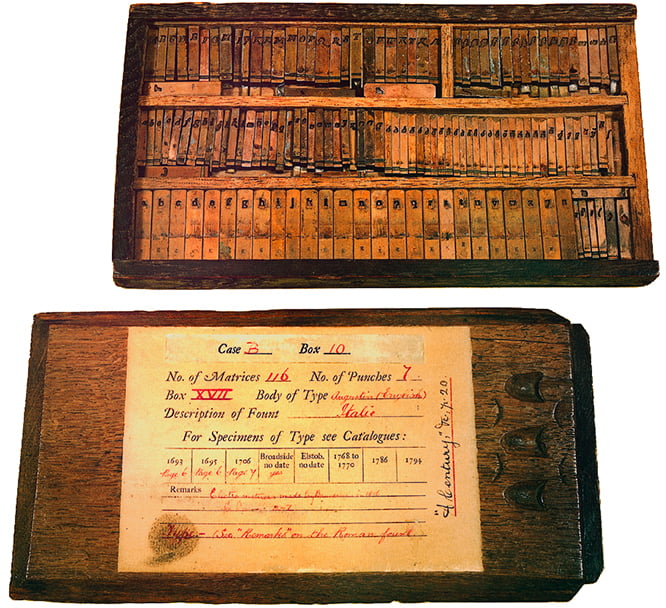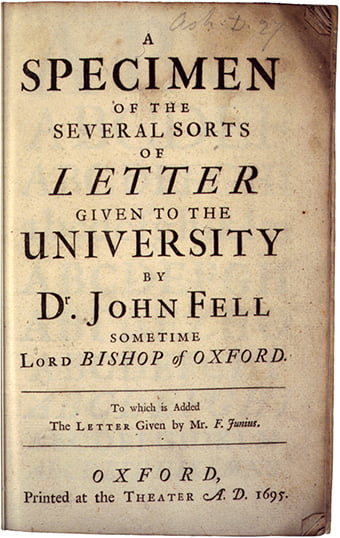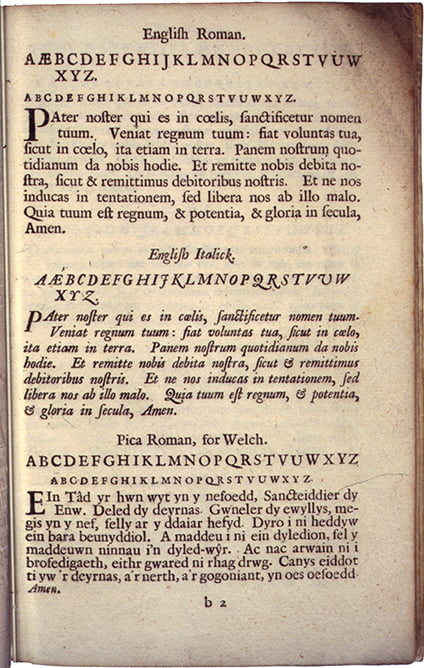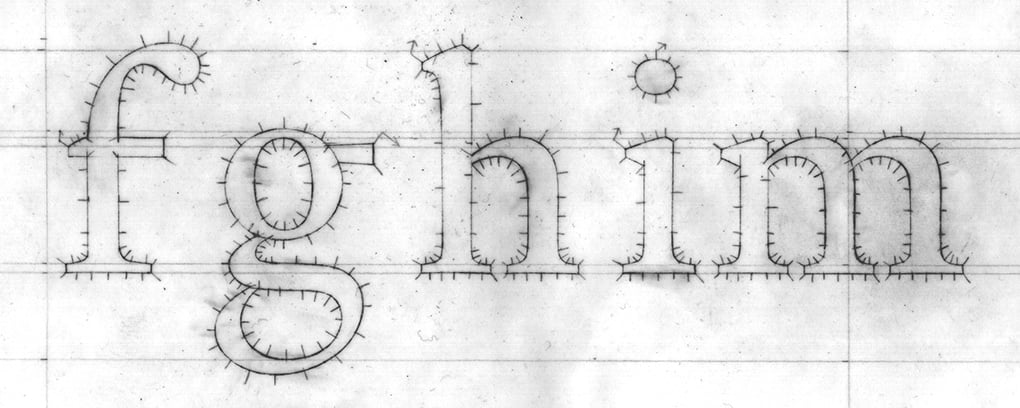
Contrary to what their names might suggest, the English Roman and English Italick, which served as the model for dtl Fell, are not of English manufacture. These are originally Dutch type models dating from the seventeenth century. John Fell (1625–1686), who was Bishop of Oxford from 1675 until his death, purchased the material and donated it to Oxford University Printing. In this context, ‘English’ is the indication for a body size that is comparable to 12 didot points. | |||||||||||||||||||||||||||||
The matrices of the English Italick | |||||||||||||||||||||||||||||
In The Roman, Italic & Black Letter Bequeathed to the University of Oxford by Dr. John Fell (Oxford, 1951) Stanley Morison reports that the English Roman may have been cut by Christoffel van Dijck (ca.1606–1669). In support of this assumption, Morison writes that the Double Pica Roman is identical to a model that can be seen on the type specimen that the widow Van Dijck published around 1673. However, Morison does not mention which type that is. In any case, it is certain that Fell’s agent in the Netherlands, Thomas Marshall, purchased matrices for a brevier and a descendiaen from Van Dijk’s son Abraham around 1670. This does not necessarily mean that the punches were cut by Van Dijck; after all, Abraham van Dijck also sold material from other punchcutters. | |||||||||||||||||||||||||||||
Title page of the 1695 specimen | |||||||||||||||||||||||||||||
Various editions of the Fell type specimens are known from the years 1693, 1695, and 1706. The only independent, i.e., not bound with other printed matter, specimen in the Bodleian Library’s possession is from 1695. It has a parchment cover. The specimens measure approximately 19.5 by 11.5 centimeters and are no more than half a centimeter thick. The sheets are printed on one side with a big dent in the paper. The quality of the printing varies and is often mediocre. | |||||||||||||||||||||||||||||
Semi-bold and bold variants have been added to the digital version | |||||||||||||||||||||||||||||
The English Roman and Italick | |||||||||||||||||||||||||||||
Pencil drawing with ikarus markings for dtl Fell | |||||||||||||||||||||||||||||